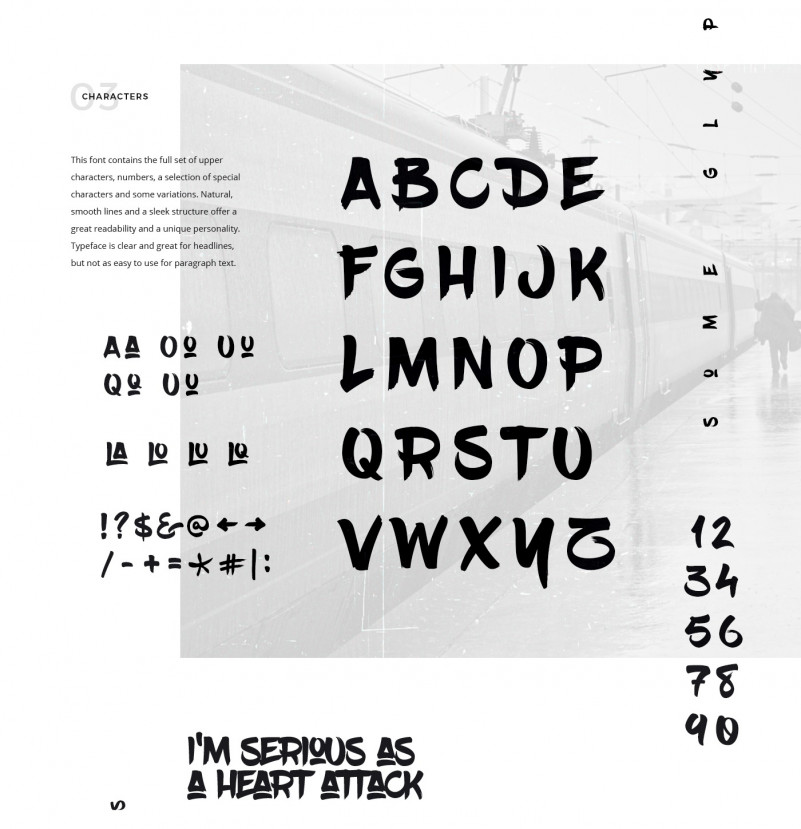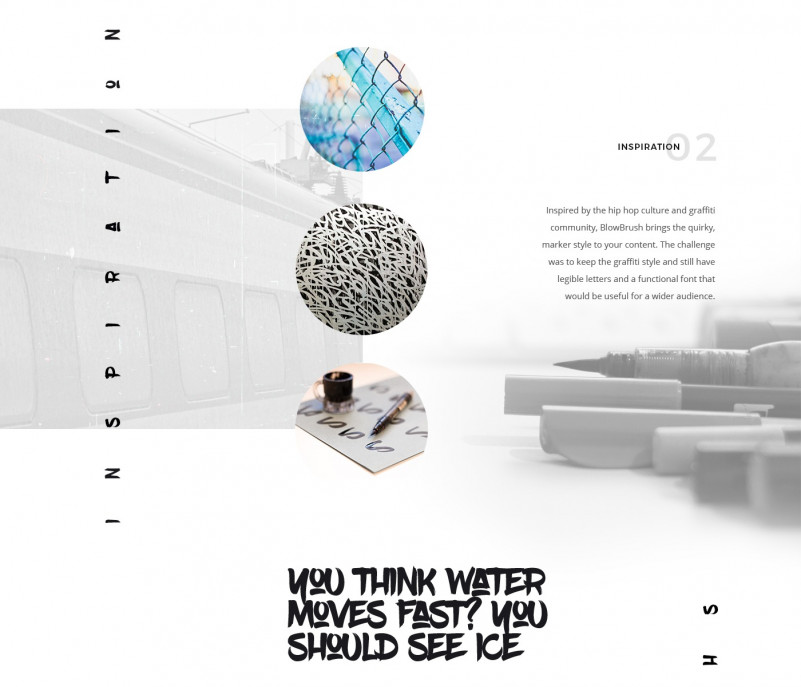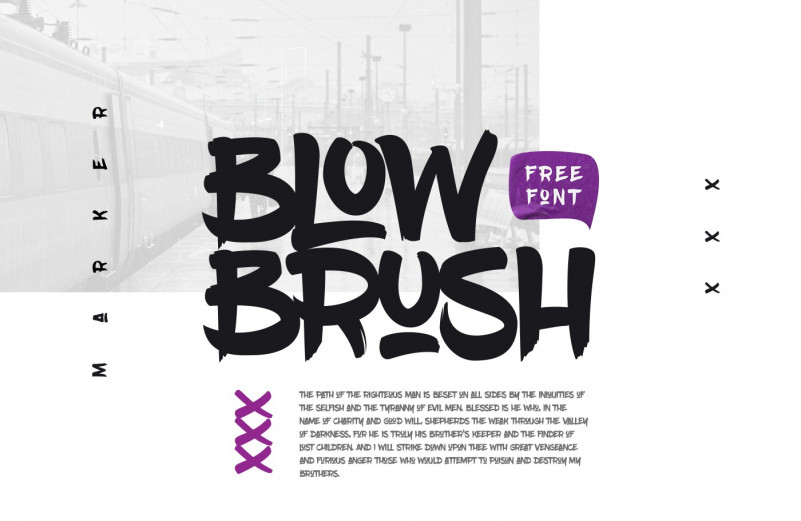
BlowBrush Font Free
Introduction to BlowBrush Fonts. Brush-style handwritten font with natural lines and angles. It contains more than 3000 kerning pairs and 23 ligatures. The quirky markup style is expressed through a unique handcrafted font that comes with a full set of uppercase characters, numbers, a selection of special characters, and several variations. These variations can give every text a unique character and a nice flow, thus making the text look original.